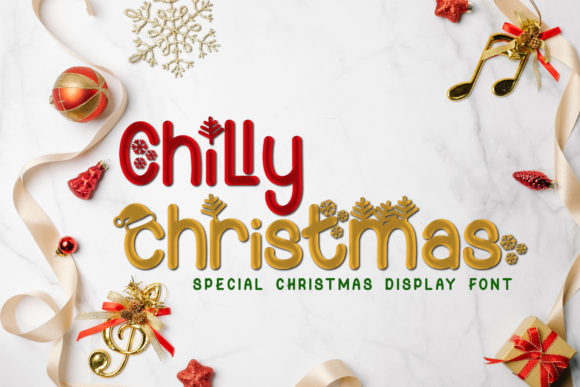
Chilly Christmas: The Festive Display Font for Joyful Designs
When the holiday season approaches, the atmosphere shifts. There is a distinct sense of warmth, nostalgia, and celebration that permeates everything from greeting cards to social media posts. For designers, marketers, and hobbyists alike, capturing this spirit visually is essential. This is where typography plays a pivotal role. Among the many decorative typefaces available, Chilly Christmas stands out as a delightful choice for anyone looking to add a touch of whimsy and seasonal cheer to their projects.
This font is not just another generic script; it is a carefully crafted display font designed specifically to evoke the magic of winter holidays. Whether you are creating a professional brand campaign or a handmade gift tag, understanding the unique features of Chilly Christmas can significantly elevate the quality and emotional resonance of your work. Let’s explore what makes this typeface special and how you can integrate it into your creative workflow with confidence.
Understanding the Charm of Chilly Christmas
At its core, Chilly Christmas is a cute and festive display font. The term "display" in typography refers to fonts designed to be used at large sizes rather than for long blocks of body text. These fonts are meant to grab attention, convey mood, and serve as the visual anchor of a design. Chilly Christmas excels in this area by combining playful letterforms with elegant curves that mimic the flow of snowflakes and the softness of winter wool.
The appeal of this font lies in its balance. It is festive without being overly cluttered, and charming without sacrificing readability. When you see the letters, they immediately suggest themes of joy, generosity, and cold-weather comfort. This makes it an ideal tool for communicating the right message during the holiday season. Instead of relying solely on images of Santa or reindeer, you can use the typography itself to set the tone. The character shapes often feature subtle decorations—tiny holly leaves, snow caps, or swirling ribbons—that are integrated seamlessly into the letterforms themselves.
For beginners, this ease of use is invaluable. You do not need advanced graphic design skills to make a project look polished. Simply selecting Chilly Christmas for a headline can instantly transform a plain white background into a vibrant holiday scene. It allows creators to focus on their message while the font handles much of the heavy lifting in terms of aesthetic appeal.
The Power of PUA Encoding
One of the most significant technical advantages of Chilly Christmas is that it is PUA encoded. If you are new to typography, this might sound like jargon, but it is actually a major benefit for your creative process. PUA stands for Private Use Area. In simple terms, standard fonts usually have a limited set of characters defined by Unicode standards. However, decorative fonts like Chilly Christmas include extra glyphs, swashes, ornaments, and alternate characters that do not fit into those standard slots.
Because Chilly Christmas is PUA encoded, you can access all of these additional glyphs and swashes with ease. This means that every 'A' isn't just one static shape. You might have an 'A' with a bow on top, an 'A' surrounded by holly, or an 'A' with a trailing ribbon. Accessing these variations is straightforward once you know how to navigate your font software, but the result is worth the small learning curve. It gives you endless possibilities for customization without needing to import separate image files or clip art.
This accessibility ensures that you are never stuck with a repetitive look. If you are designing a series of posters or a multi-page invitation suite, you can keep the design fresh by swapping out standard letters for more elaborate swashes. It adds a layer of professionalism and thoughtfulness that clients and audiences appreciate.
Practical Applications Across Different Contexts
The versatility of Chilly Christmas extends across various domains. Its festive nature makes it suitable for both personal and commercial uses, provided you adhere to the appropriate licensing agreements. Here are some realistic scenarios where this font shines:
- Small Business Marketing: Local bakeries, florists, and boutiques can use Chilly Christmas for window signs, social media graphics, and email newsletters. It helps small brands compete with larger corporations by adding a personal, human touch to their digital presence.
- Event Planning: For holiday parties, school concerts, or community gatherings, this font is perfect for invitations, programs, and signage. It sets an immediate expectation of fun and celebration for attendees.
- Educational Materials: Teachers and educators can incorporate Chilly Christmas into worksheets, certificates, and classroom decorations. It engages students and makes learning materials feel less rigid and more inviting during the busy holiday months.
- Personal Creations: Hobbyists who create custom gifts, such as embroidered towels, painted ornaments, or printed photo albums, will find this font incredibly useful. It translates well to physical mediums, allowing for beautiful handcrafted aesthetics.
In conclusion, Chilly Christmas offers a blend of aesthetic charm and technical flexibility that makes it a standout choice for holiday design. By leveraging its PUA-encoded features and understanding its best practices for use, you can create stunning visuals that resonate with your audience. Add it confidently to your projects, and let yourself be amazed by the outcome generated. Whether you are a seasoned professional or just starting out, this font provides an accessible path to creating memorable, joyful holiday content.